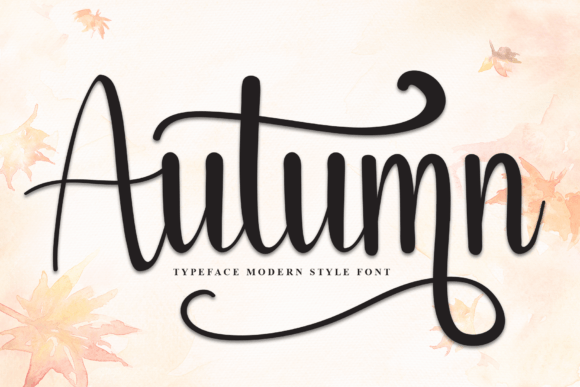
Unleash the Charm of Autumn with the Perfect Handwritten Display Font
Have you ever stumbled upon a font that instantly sparks joy and makes you want to create something beautiful? That’s exactly what happens when you meet the Autumn Font, a delightful handwritten display font that’s sure to become your new go-to companion for any design project.
As a designer, you’re always on the lookout for that special something that sets your designs apart from the rest. And with Autumn Font, you’ve found it. Its endearing and playful edge perfectly captures the essence of joy and friendliness, making it the perfect match for crafting eye-catching wedding invitations, memorable cards, or any other design that needs a lively spin.
With Autumn Font, you’ll be able to add a blissful touch to your designs that never goes unnoticed. Its value lies in its ability to connect with your audience on a deeper level, making it a priceless asset for any designer looking to create truly memorable designs.
Autumn Font Key Features
• Font Family: Autumn Font is a unique, hand-drawn font family designed to evoke the feeling of fall.
• Unique Characteristics: Autumn Font features a natural, organic feel with subtle imperfections, giving it a warm and inviting aesthetic.
• Kerning and Ligatures: Includes advanced kerning and ligature pairs to ensure seamless text rendering and a polished appearance.
Designer Review: Autumn Font
Overall, I have mixed feelings about the Autumn Font. While it has some great qualities, it also has some limitations that might make it less desirable for certain projects.
• Beautiful, natural feel: Autumn Font has a unique, organic style that captures the essence of the season. It’s perfect for creating a cozy, autumnal atmosphere in your designs.
• Wide range of languages supported: Autumn Font is designed to be highly legible, making it suitable for a wide range of languages and text-heavy projects.
• Highly customizable: Autumn Font offers a range of OpenType features and customization options, allowing you to fine-tune its look and feel to suit your project’s needs.
• Limited font weights: Autumn Font currently only offers a limited range of font weights, which might make it less suitable for projects that require a wide range of styles.
• Not ideal for small text: Due to its organic design, Autumn Font can be quite busy and may not be the best choice for small text or intricate designs.
Overall, I think Autumn Font is a solid choice for projects that require a natural, autumnal feel. However, it may not be the best option for projects that require a wide range of font weights or small text. With some careful consideration and planning, Autumn Font can be a great addition to your design toolkit.
Experiment with different font combinations to create a unique and eye-catching design. Use the Autumn Font in conjunction with other autumn-themed elements, such as leaves or pumpkins, to create a cohesive theme. Adjust the font size and color to ensure it is readable and visible in your design.
The Autumn Font is perfect for creating designs for fall-themed events, such as Halloween or Thanksgiving. Use it in invitations, posters, or social media graphics to add a seasonal touch. The font is also great for creating a cozy and inviting atmosphere in home decor, such as in a living room or kitchen.